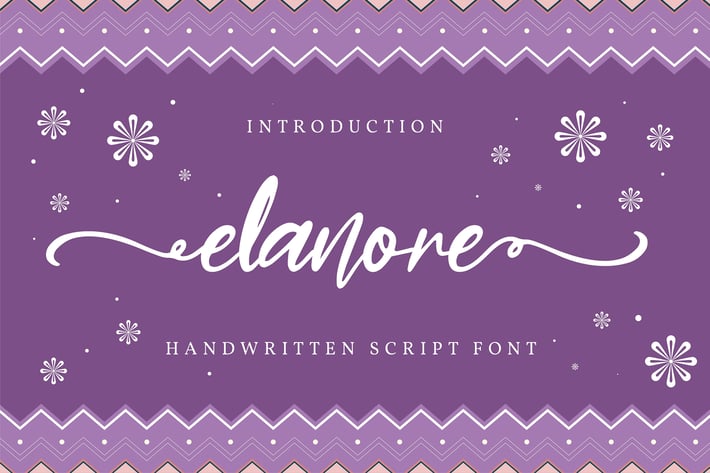
Elanore | Handwritten Script Font
Elanore | Handwritten Script Font with a calligraphy style, So beautiful on invitation like greeting cards, branding materials, business cards, quotes, posters, and more!